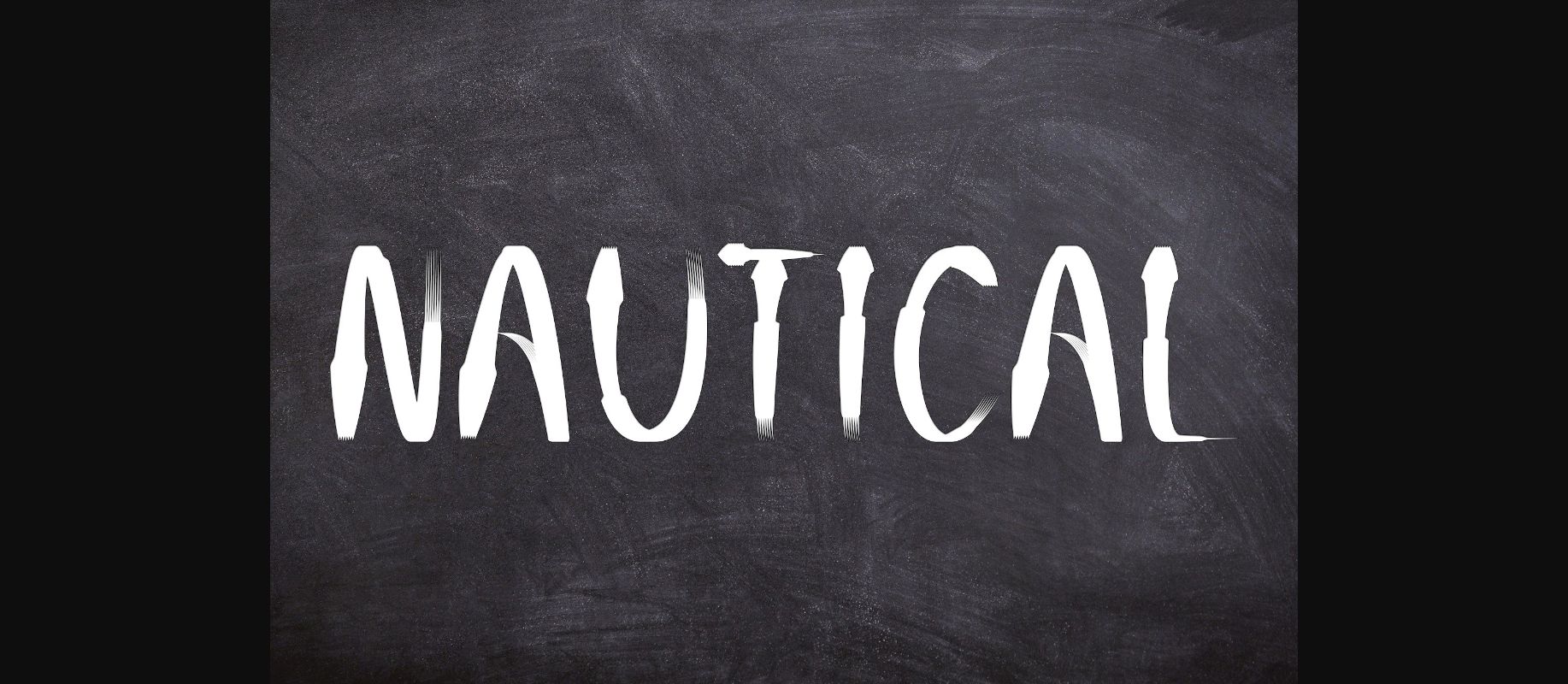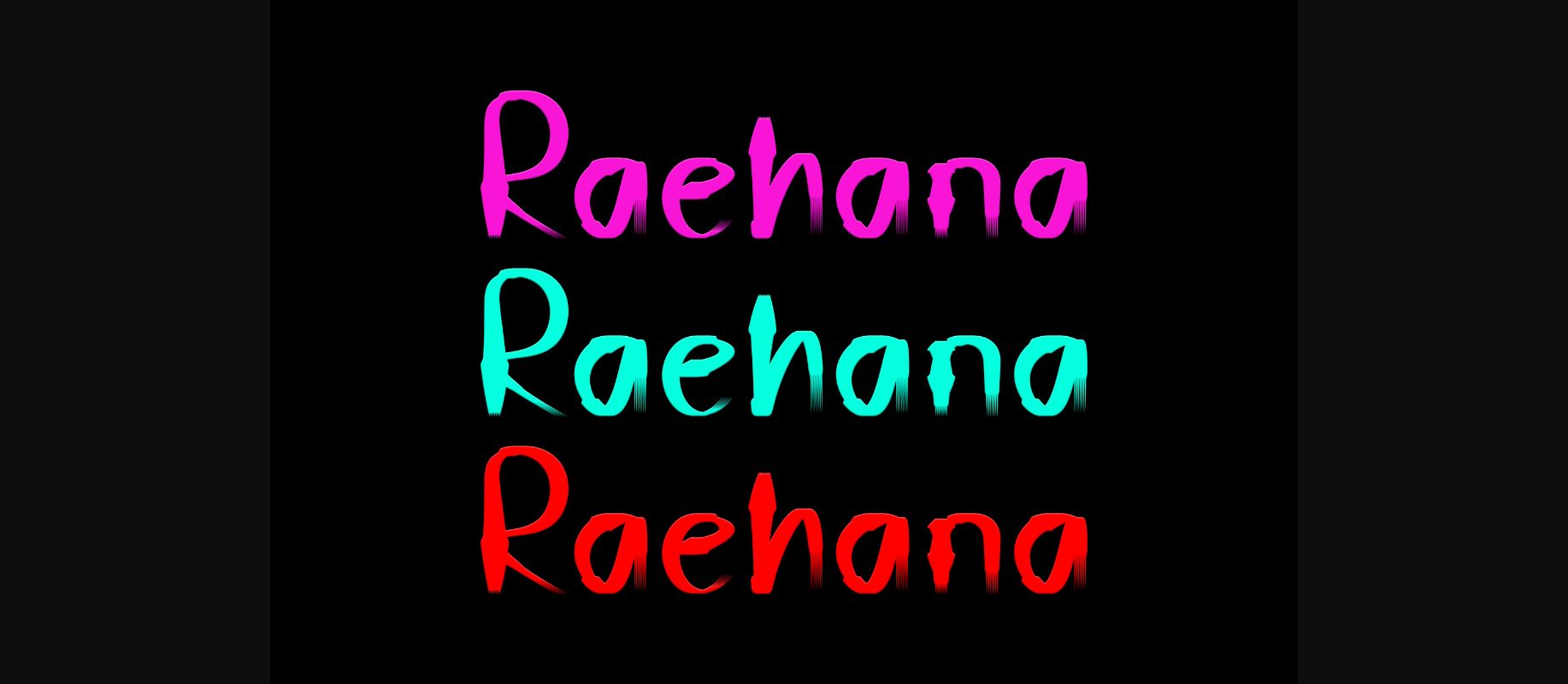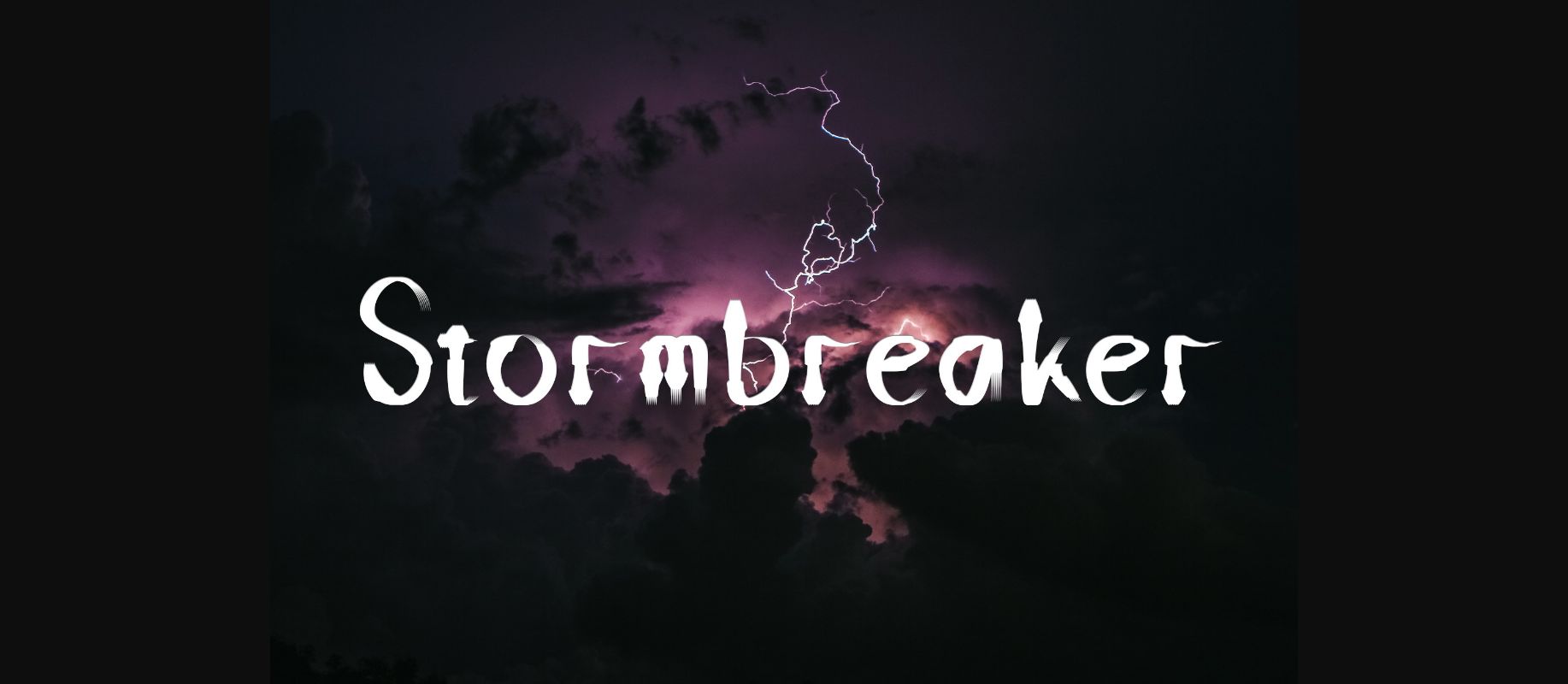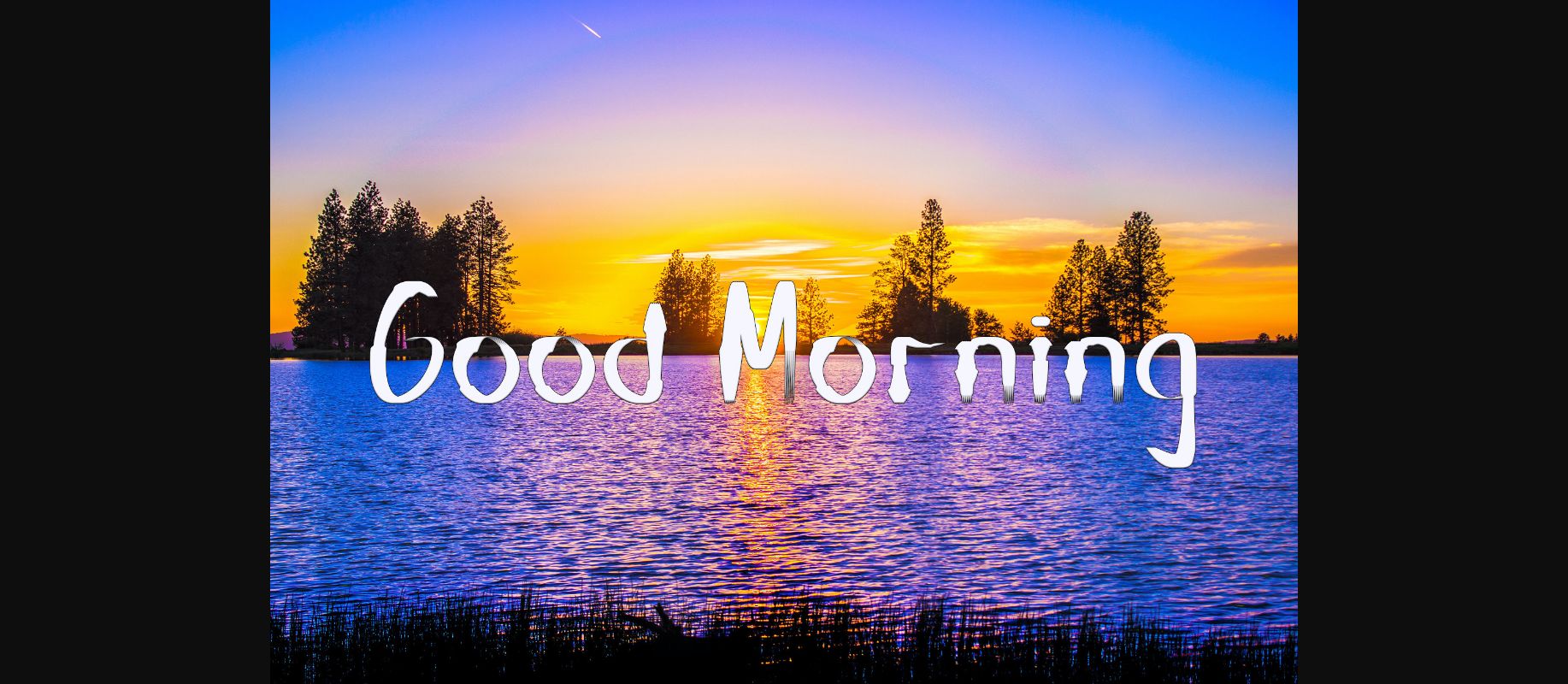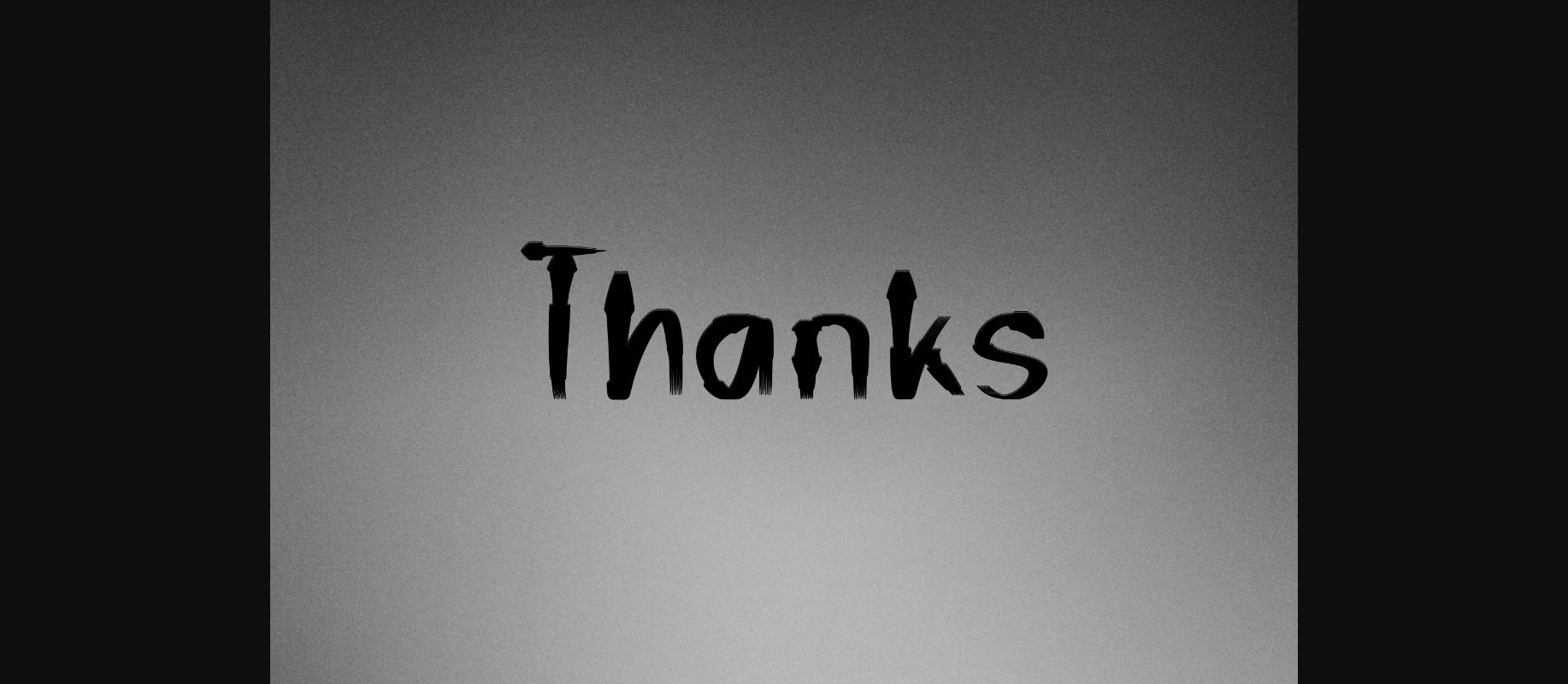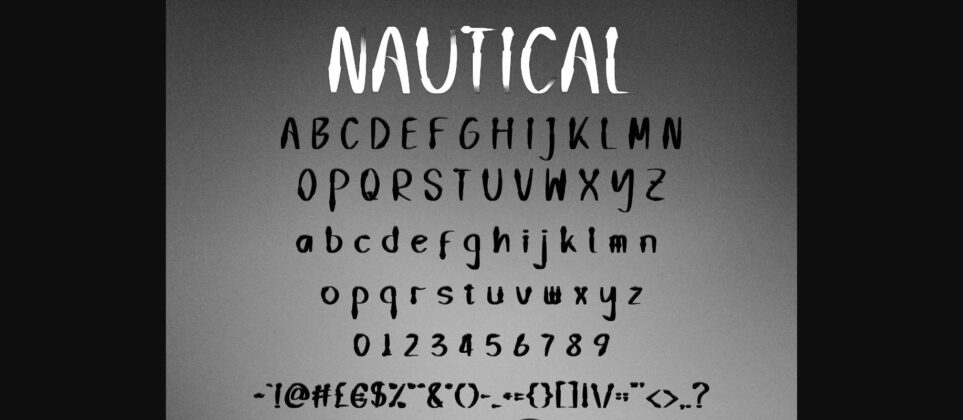
Nautical is a quirky and fun decorative font that has uniquely shaped characters for a spectacular finish! Use it for your most creative projects, and watch how it takes them to the highest levels!